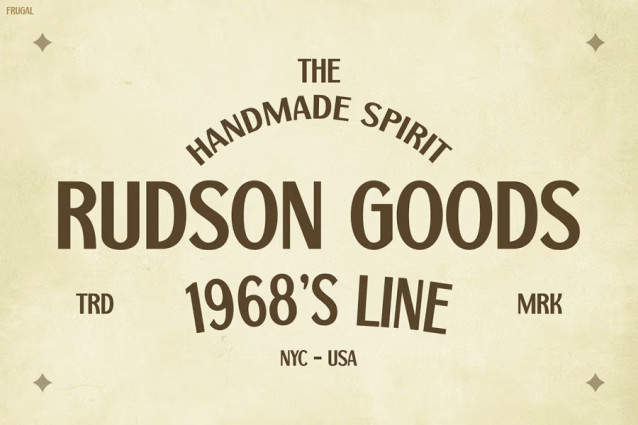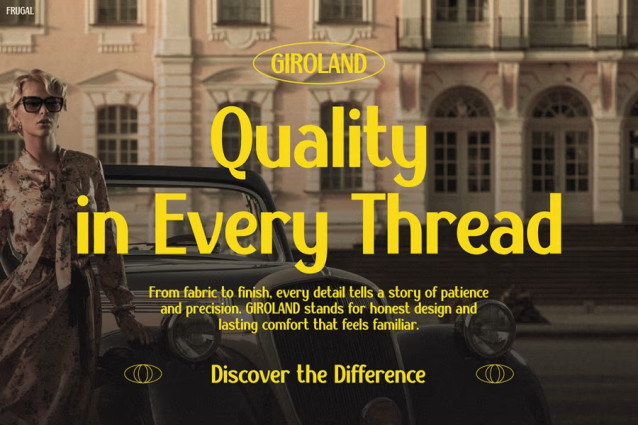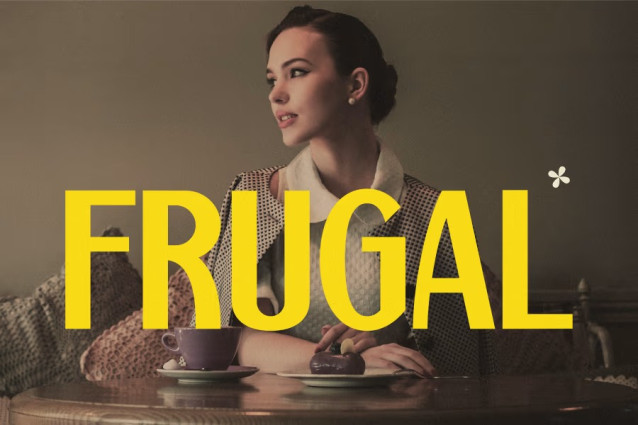
Frugal Font
Frugal Font captures the beauty of classic typography and redefines it for modern design. With its confident strokes, smooth curves, and balanced proportions, this typeface delivers both nostalgia and precision. Its geometric yet humanistic structure allows it to remain versatile across styles. Moreover, FRUGAL’s clean aesthetic ensures that every letter feels intentional, giving your text a sense of authority and elegance. Therefore, whether you’re aiming for a vintage vibe or a minimalist look, this font effortlessly bridges both worlds.
Each character in Retro Font FRUGAL is crafted to create a harmonious visual flow. The subtle contrast in weight and spacing enhances legibility while maintaining a timeless charm. In addition, its refined simplicity makes it stand out in a sea of over-decorated retro fonts. FRUGAL is not only visually appealing but also functionally adaptable, making it perfect for various applications—from editorial layouts to modern branding projects.